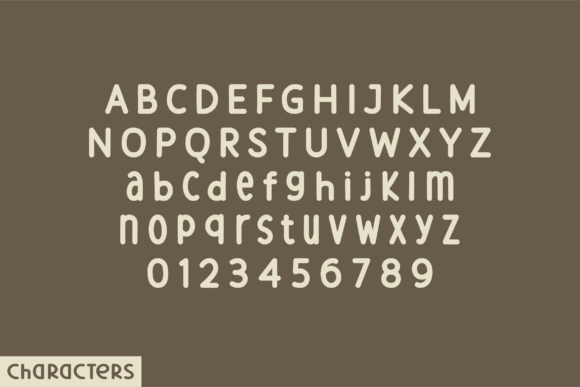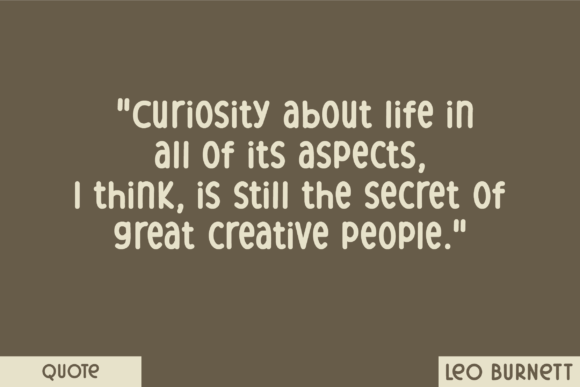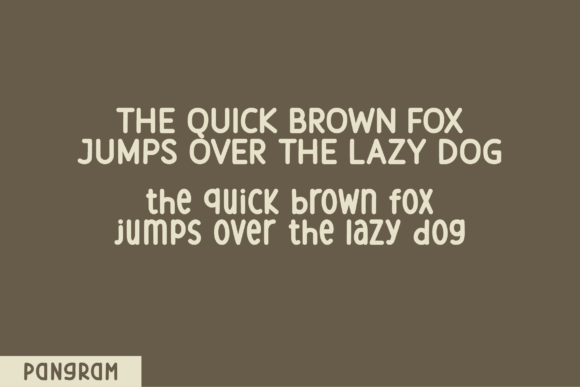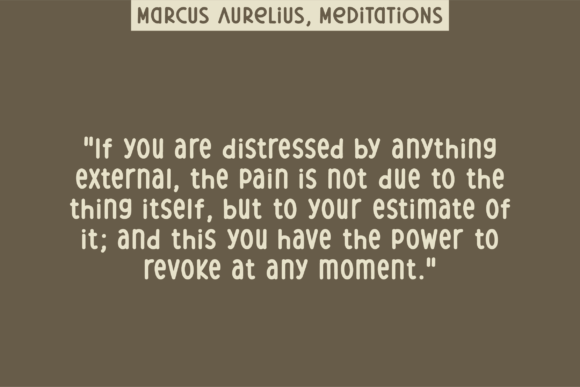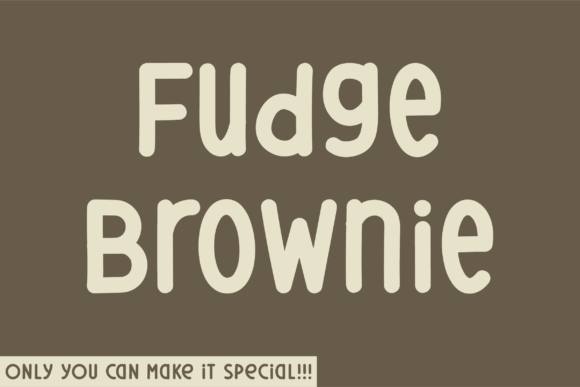
Fudge Brownie Font: The Unique Sans Serif Font for Creative Designs
Are you a designer or crafter looking for a font that can add a touch of uniqueness to your designs? Look no further than the Fudge Brownie font. This natural sans serif font has been crafted with precision, making it a perfect choice for a variety of design projects. In this article, we’ll explore the features and benefits of the Fudge Brownie font and how it can elevate your designs.
What Makes Fudge Brownie Font So Unique?
The Fudge Brownie font is unlike any other font you’ve ever seen. Its uniqueness lies in the fact that it was created without changing a single node in each character’s indentation. This means that every character in the font has a natural, organic feel to it, making it stand out from other sans serif fonts. The font’s creator has carefully crafted each character to ensure that it retains its natural shape, making it a true one-of-a-kind font.
Perfect for Quotes, Notes, Tees, and More
The Fudge Brownie font is incredibly versatile, making it perfect for a wide range of design projects. Whether you’re creating quotes, notes, tees, or any other product design, this font is sure to impress. Its natural, effortless look makes it ideal for designs that require a touch of elegance and sophistication. Imagine using the Fudge Brownie font to create a stunning quote poster, a stylish note card, or a bold t-shirt design. The possibilities are endless!
Key Features of Fudge Brownie Font
• Natural Sans Serif Font: The Fudge Brownie font is a beautifully crafted sans serif font that exudes a natural, effortless look.
• Unique Character Indentation: The font’s unique character indentation makes it stand out from other fonts, giving it a distinctive look.
• Perfect for Creative Designs: The Fudge Brownie font is perfect for designers and crafters who want to add a touch of uniqueness to their designs.
• Versatile: The font is incredibly versatile, making it suitable for a wide range of design projects, from quotes and notes to tees and product designs.
Benefits of Using Fudge Brownie Font
So, why should you choose the Fudge Brownie font for your design projects? Here are just a few benefits of using this unique font:
• Adds Uniqueness to Your Designs: The Fudge Brownie font adds a touch of uniqueness to your designs, setting them apart from others.
• Elegant and Sophisticated Look: The font’s natural, effortless look makes it perfect for designs that require an elegant and sophisticated touch.
• Increases Readability: The font’s clear and concise design makes it easy to read, even at small sizes.
• Perfect for Branding: The Fudge Brownie font is perfect for branding projects, as it can help create a unique and memorable visual identity.
How to Use Fudge Brownie Font in Your Designs
Using the Fudge Brownie font in your designs is easy. Here are a few tips to get you started:
• Pair it with Other Fonts: Pair the Fudge Brownie font with other fonts to create a unique and visually appealing design.
• Experiment with Different Sizes: Experiment with different font sizes to find the perfect size for your design.
• Use it for Headings and Body Text: Use the Fudge Brownie font for headings and body text to create a cohesive and visually appealing design.
In conclusion, the Fudge Brownie font is a unique and versatile font that’s perfect for designers and crafters who want to add a touch of elegance and sophistication to their designs. Its natural sans serif look, unique character indentation, and versatility make it a great choice for a wide range of design projects. Whether you’re creating quotes, notes, tees, or any other product design, the Fudge Brownie font is sure to impress.